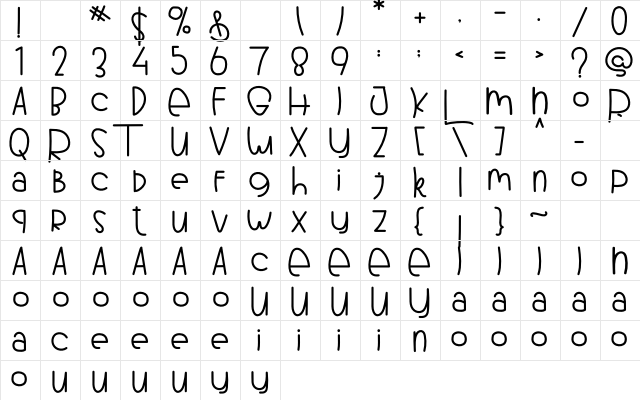
ARBBIE BUBBLE Regular
ARBBIE BUBBLE has an approachable, lighthearted character — its loose, expressive forms are well-suited to children's content, casual branding, and fun-first design.
Font Pairing: Pairs well with a rounded or humanist sans for body copy, maintaining the friendly tone without relying on ARBBIE BUBBLE to carry extended reading.
Pro Tip: Avoid using ARBBIE BUBBLE for long passages of text — it works best for headlines, labels, and short calls to action.